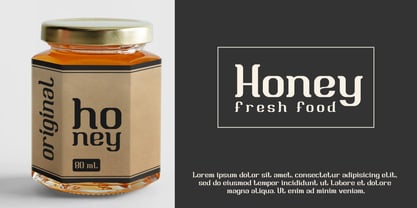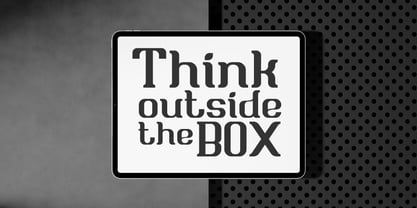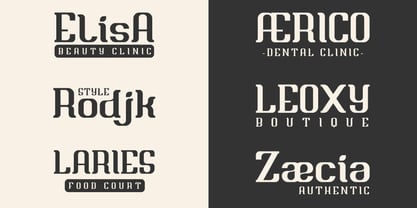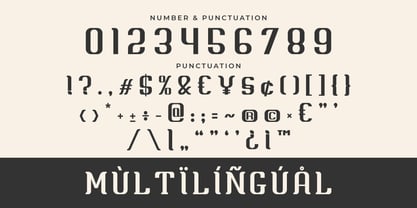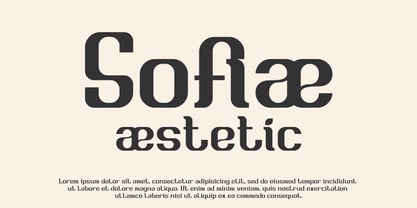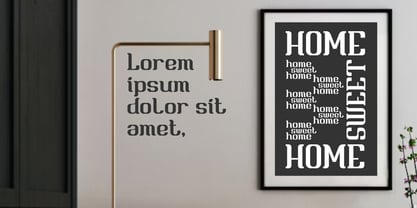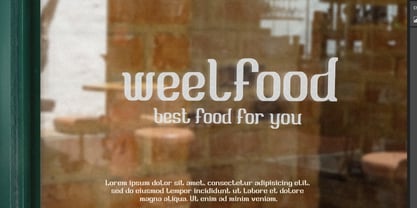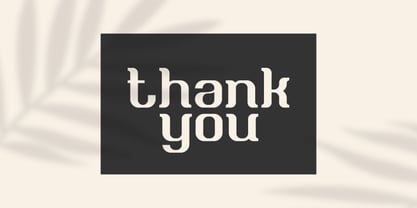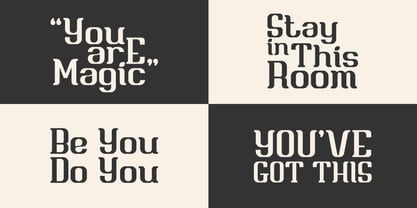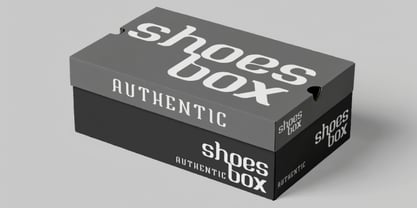
Briesa
by Mily Studio
Briesa is a modern elegant display font. That's unique, charming, and a bit quirky. This font is perfect for designs that aim to be more attractive. Created with a high level of aesthetic quality, it is suitable for T-shirts, comics, book covers, posters, merchandise, logotypes, and much more.